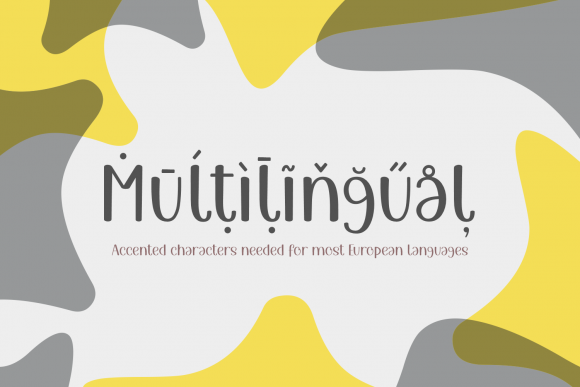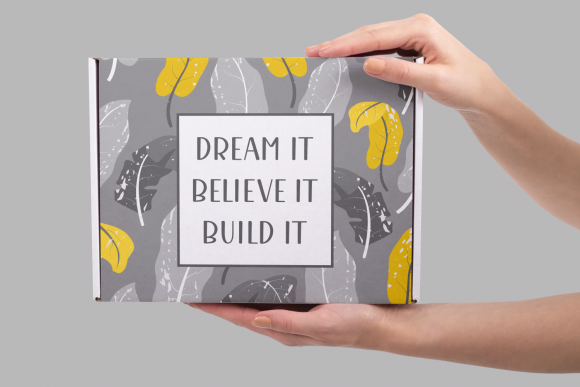
Brylian Font
About Brylian Font
Brylian is a playful handwritten font with rounded corners and special starry characters that make it a unique font to use for any of your projects.